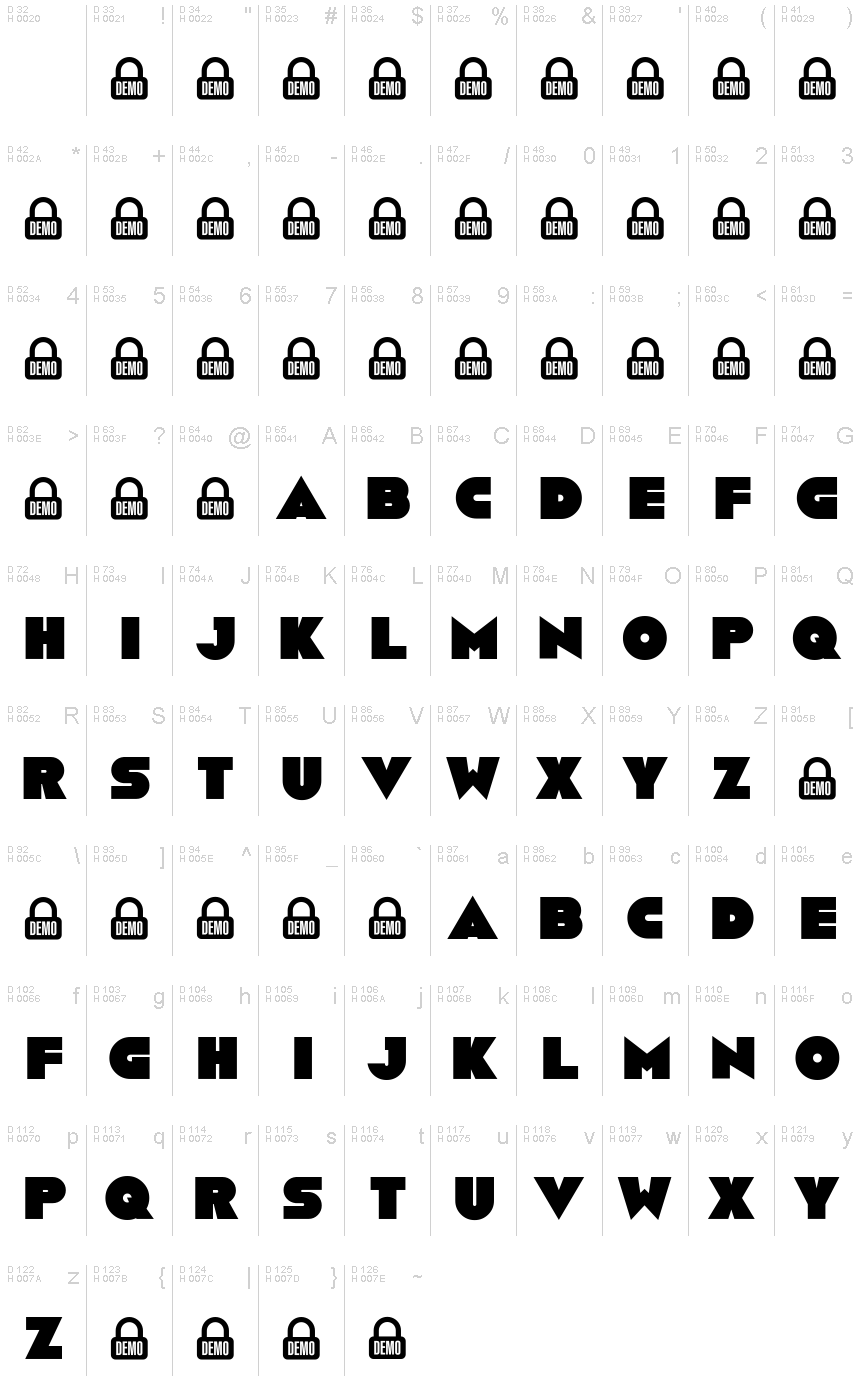
MXL Deum
Maximum Limit’s MXL Deum is a bold extended style geometric sans serif typeface. This free font, available for personal use only, represents the inaugural release of the MXL Series - a revolutionary next step following some previous experiments under the Axel Lymphos moniker. It is extra-bold and dynamically proportioned which makes it visually stunning.
MXL Deum is ideal in many different design contexts including logos, headlines or branding projects as it provides designers with something truly unique in their arsenal while working on creative endeavours. The modern and distinctive features of this typeface make it perfect for any project that requires strong text treatment combined with legibility. Download this amazing font now and start exploring MXL Deum to take your designs up another level!